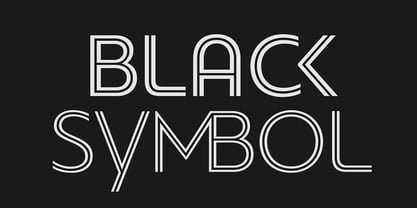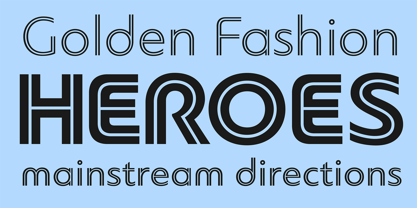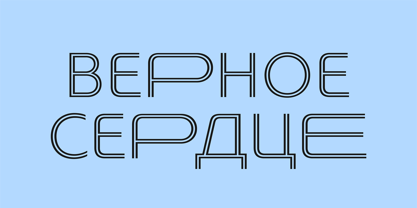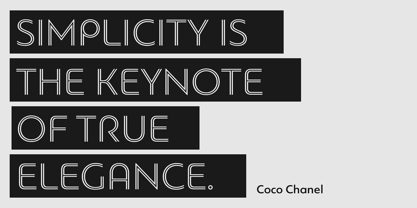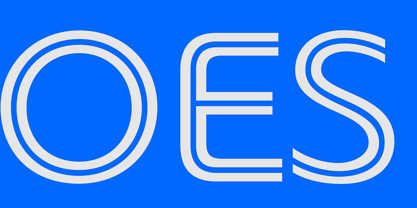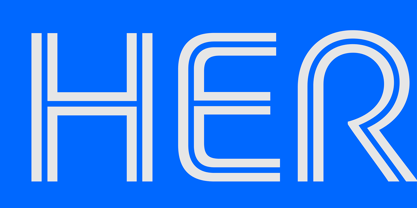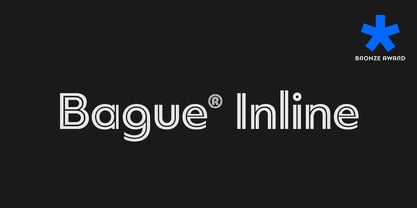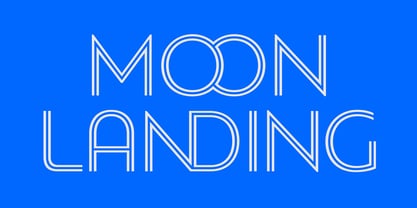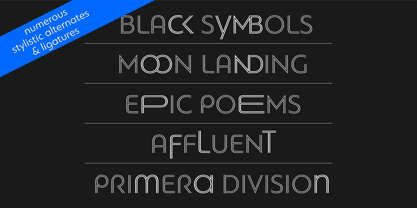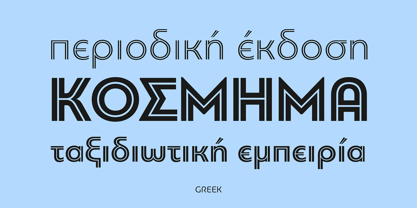
PF Bague Inline Pro™
by Parachute
The PF Bague Inline Pro Font Family was designed by Panos Vassiliou and published by Parachute. PF Bague Inline Pro contains 4 styles.
Bague Inline Pro is the inline version of Bague Universal a contemporary geometric typeface family which blends distinct minimalist characteristics with mainstream details. Despite its inspiration from Herbert Bayer’s drawings of the 1920s, it diverts from the constructivist rigidity and display structure of early geometric typefaces by incorporating humanist characteristics as well as classic letterform shapes which balance out the extremity of the minimal shapes. Bague Inline is a typeface that stays true to its urban nature and heritage. A very interesting feature of Bague Inline is its vast array of uppercase alternates and ligatures which truly shine when set at display sizes. Make your selection from 4 groups of alternates as well as a rich set of discretionary ligatures and watch it transform into a flexible, charming and stylish typeface with strong modern aesthetics. This typeface offers enormous possibilities and variations for editorial design and branding. Bague Inline is the only commercially available inline typeface that comes in 4 weights for uppercase and lowercase letters. Each style consists of 775 glyphs with more that 128 alternates and ligatures and an extended set of characters which supports simultaneously Latin, Cyrillic and Greek. PDF Specimen Bague Inline on Behance